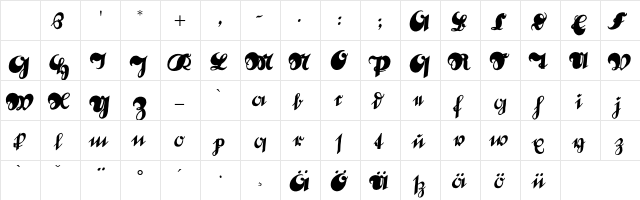
Complete DeutscheSchriftCallwey Regular glyph index. Displaying only characters natively supported by DeutscheSchriftCallwey Regular font.
DeutscheSchriftCallwey is a composed and adaptable typeface that performs quietly and consistently across a wide range of design contexts.